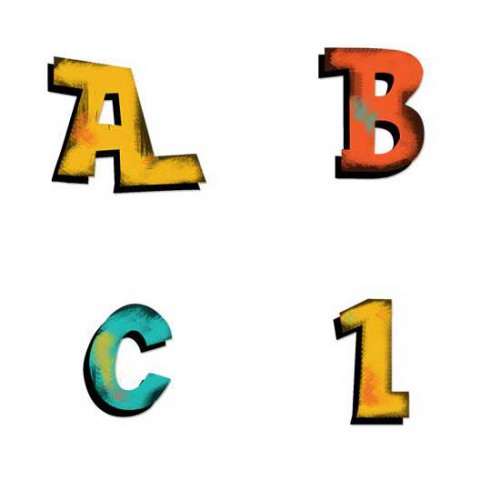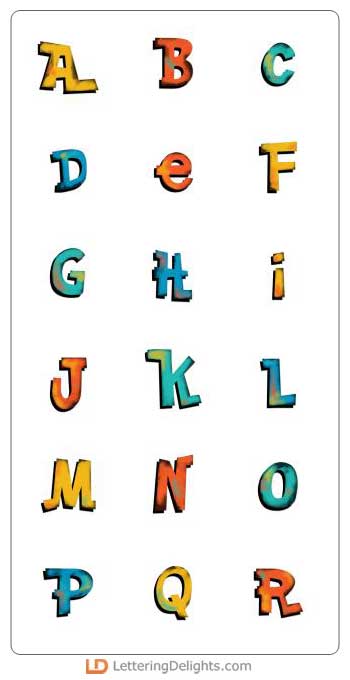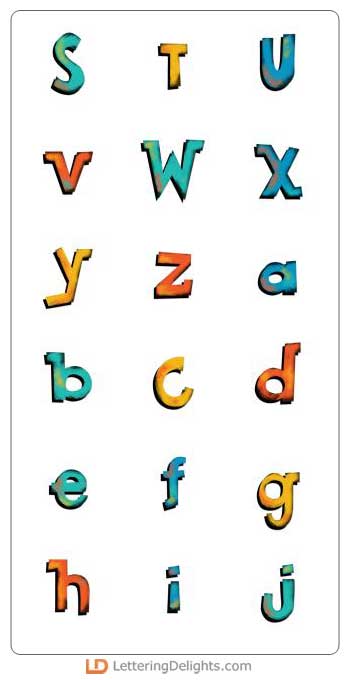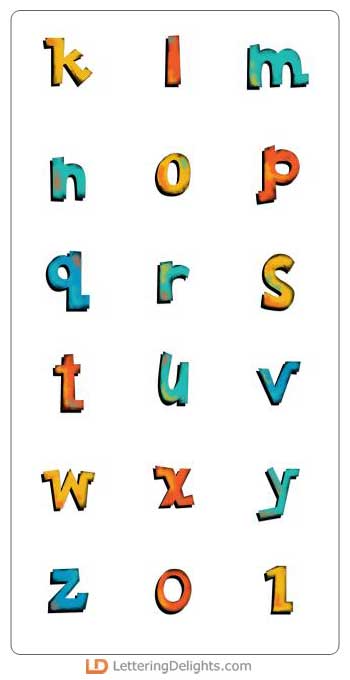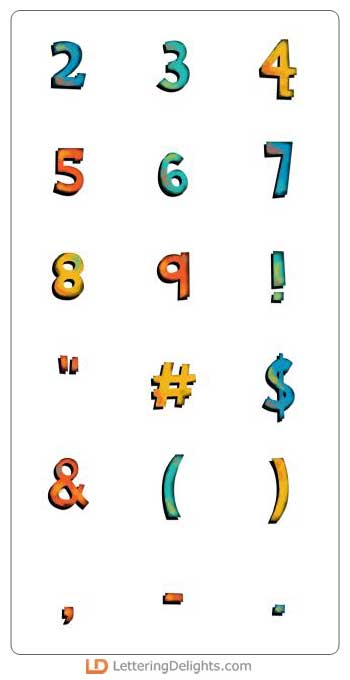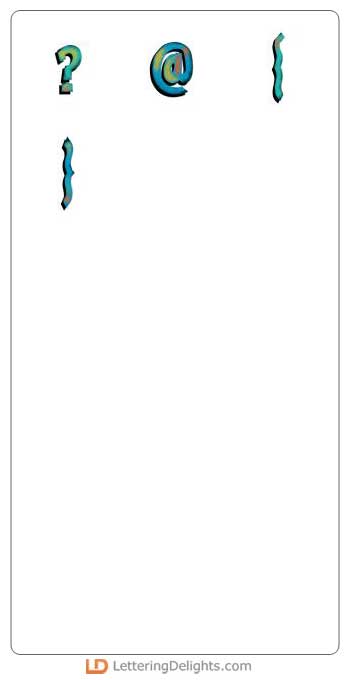
Hipsters - AL
If you're a cool cat, you've gotta have a groovy alphabet to express the meaning of life. Don't be a square, man! Like, this is the bomb!